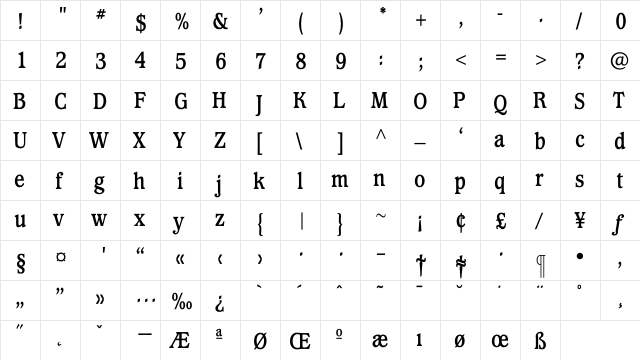
WaverlyBoldCondensed Regular Font Preview
Design Context for WaverlyBoldCondensed Typeface
WaverlyBoldCondensed takes a measured approach to typography — its balanced proportions and neutral character make it a reliable workhorse for both digital and print work. The heavy weight commands attention and anchors typographic hierarchies. Its narrow stance lets it pack a punch even in space-constrained designs.